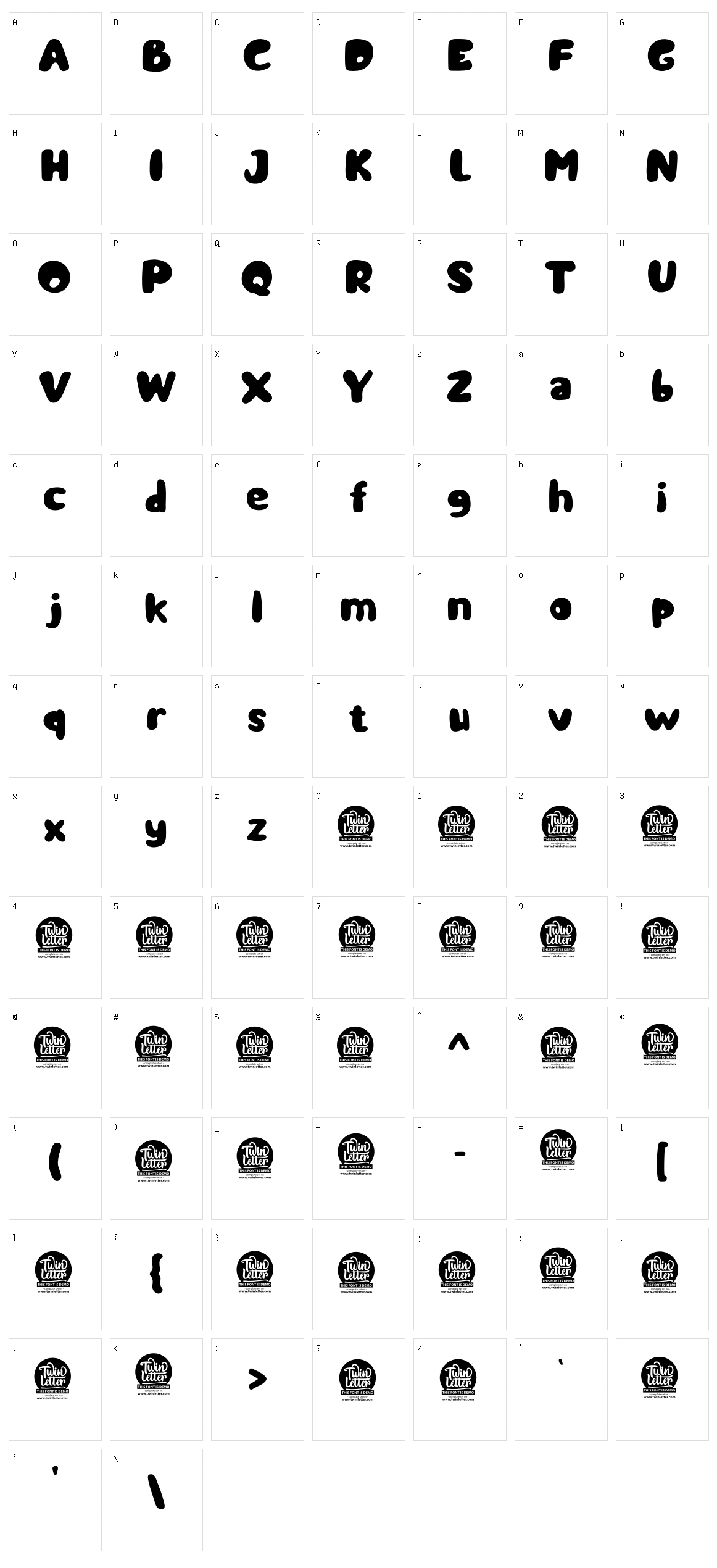
The free font Good Castyll is carefully designed by twinletter, showcasing a thoughtful balance of creativity and usability and falls under the Cartoon font style. When you download the ZIP file, it contains only 111.03 KB of font files, making it lightweight and quick to download. Please review the license details below to understand permitted usage and distribution rights. If license information is not available, we recommend using this font for personal projects only or contacting the author directly for commercial usage permissions.